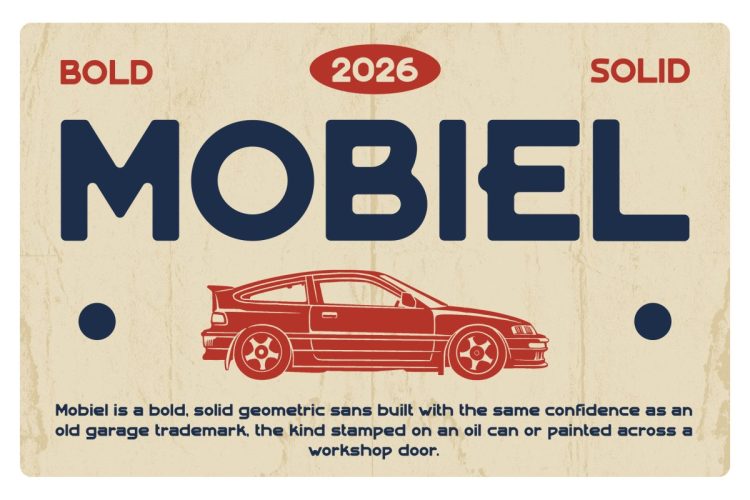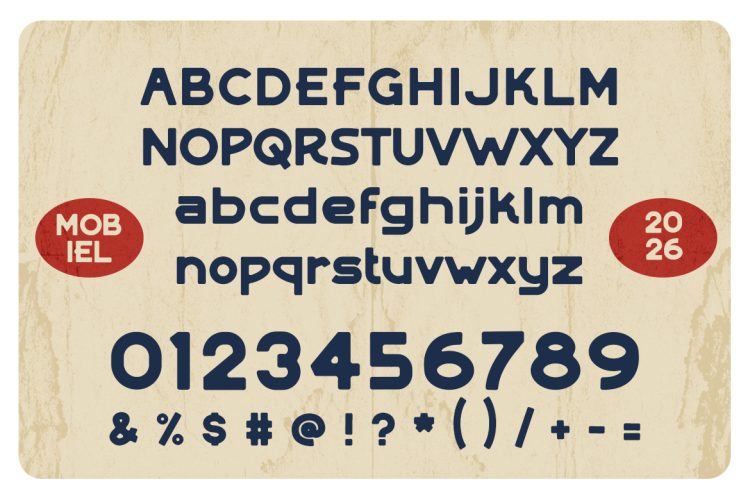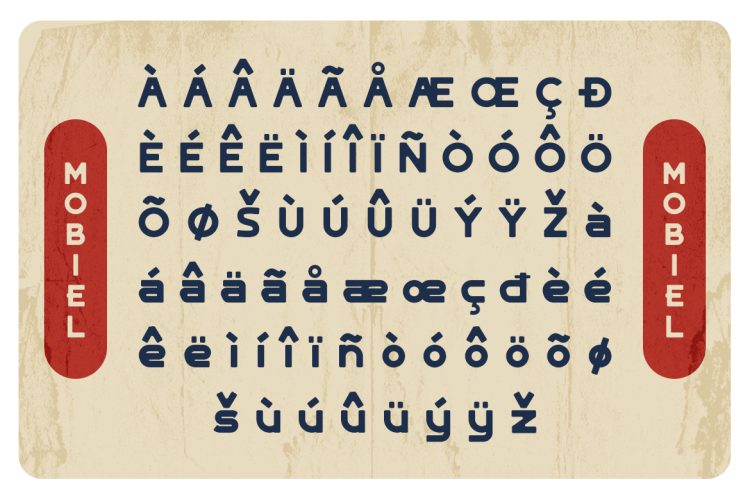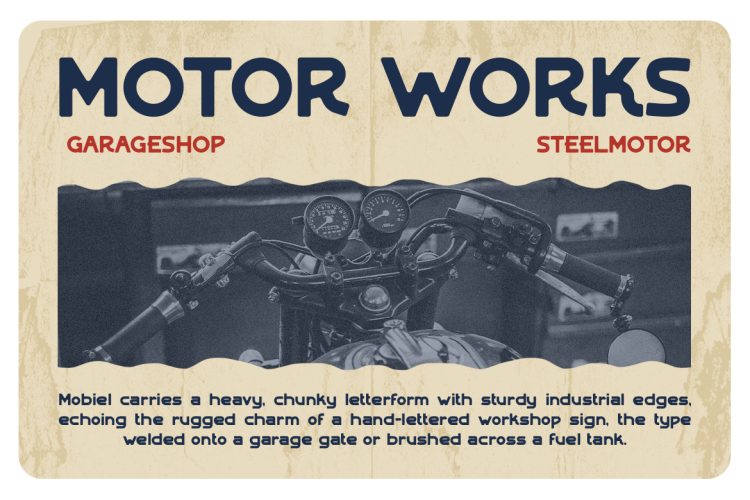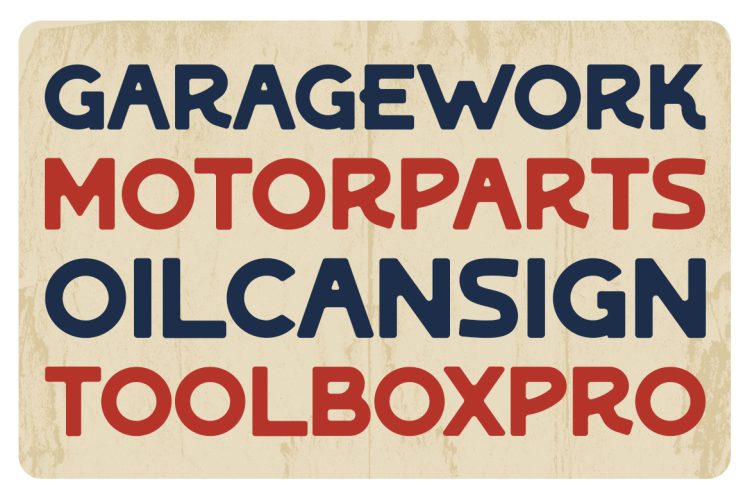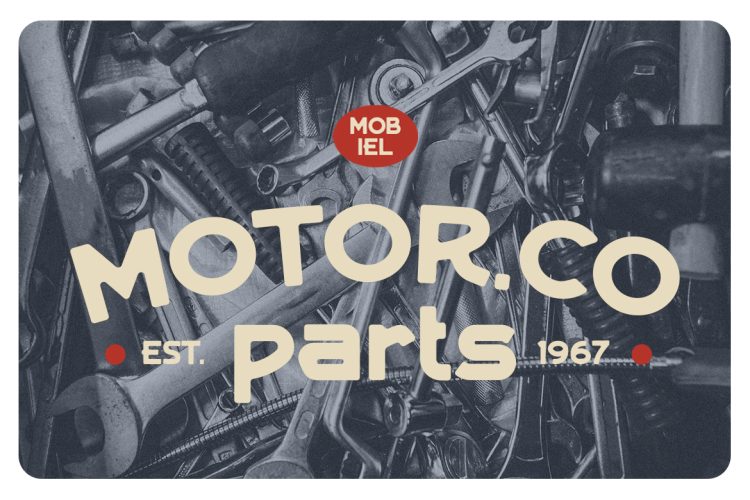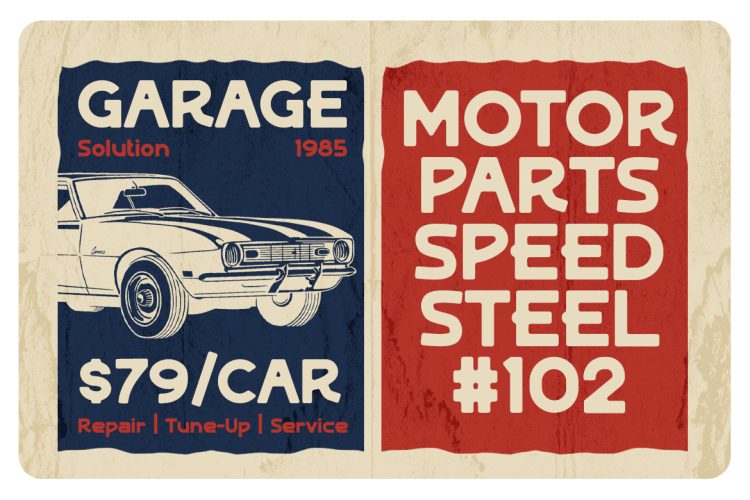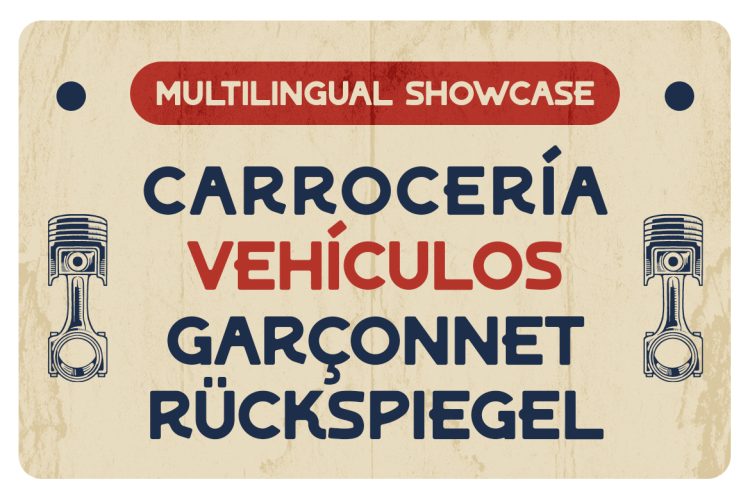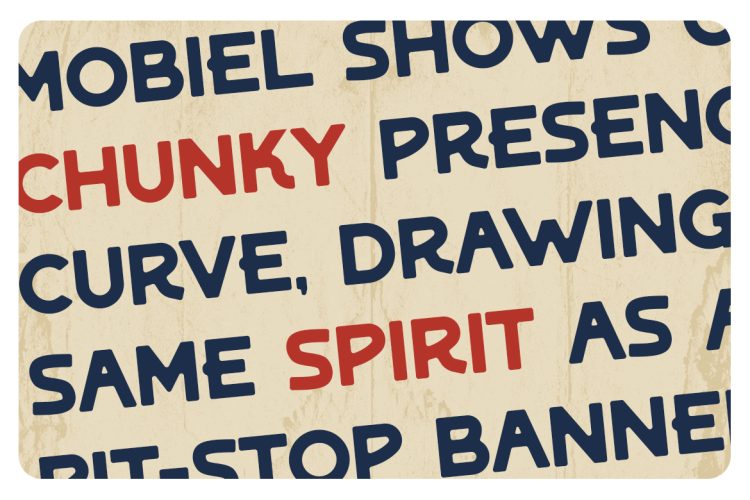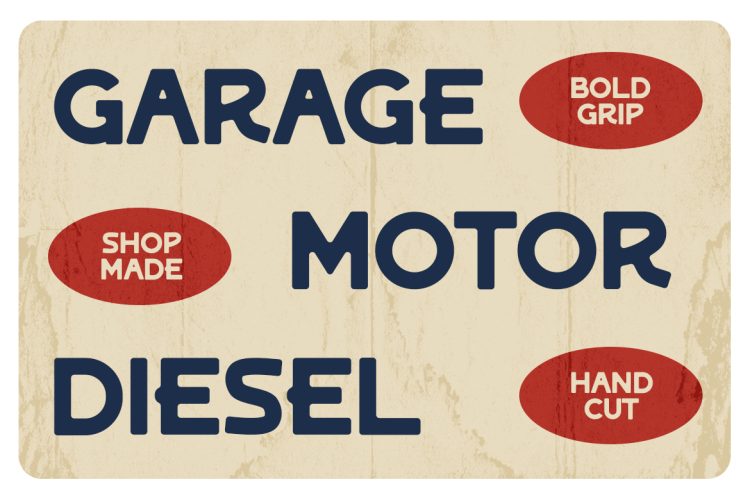
MOBIEL – Bold Roads, Bolder Type
Vintage Font MOBIEL roars onto the scene like a classic muscle car fresh off the lot. To begin with, notice the thick, confident strokes paired with a rugged garage-poster soul. What truly makes it stand out, however, is the contrast between styles. On one hand, you get chunky bold letterforms that feel hand-cut and industrial. On the other hand, it’s balanced with clean geometric precision, so it never looks messy. As a result, this typeface instantly evokes motor oil, rubber tires, and old workshop signage. At the same time, it still reads crisp enough for modern digital use. Moreover, with full multilingual support across 67 languages โ including extended Latin accents like ร, ร, ร, and ร โ it’s built to speak globally. Even so, it keeps that same rebellious, road-tested attitude in every single character.
Vintage Font MOBIEL Perfect For
First and foremost, this font shines on automotive branding, garage and workshop signage, and motorsport merchandise. Additionally, it works beautifully for racing team logos, tool brand packaging, and retro-themed posters. Overall, it’s a natural fit for anyone chasing a bold, masculine, industrial vibe โ whether that’s a small mechanic shop or, alternatively, a full-blown lifestyle apparel brand.
Who Should Grab This
Specifically, designers, small business owners, and garage or workshop startups will love this font. Likewise, automotive bloggers, apparel brand creators, and vintage enthusiasts will find it irresistibly on-brand, especially when building a retro-cool identity.